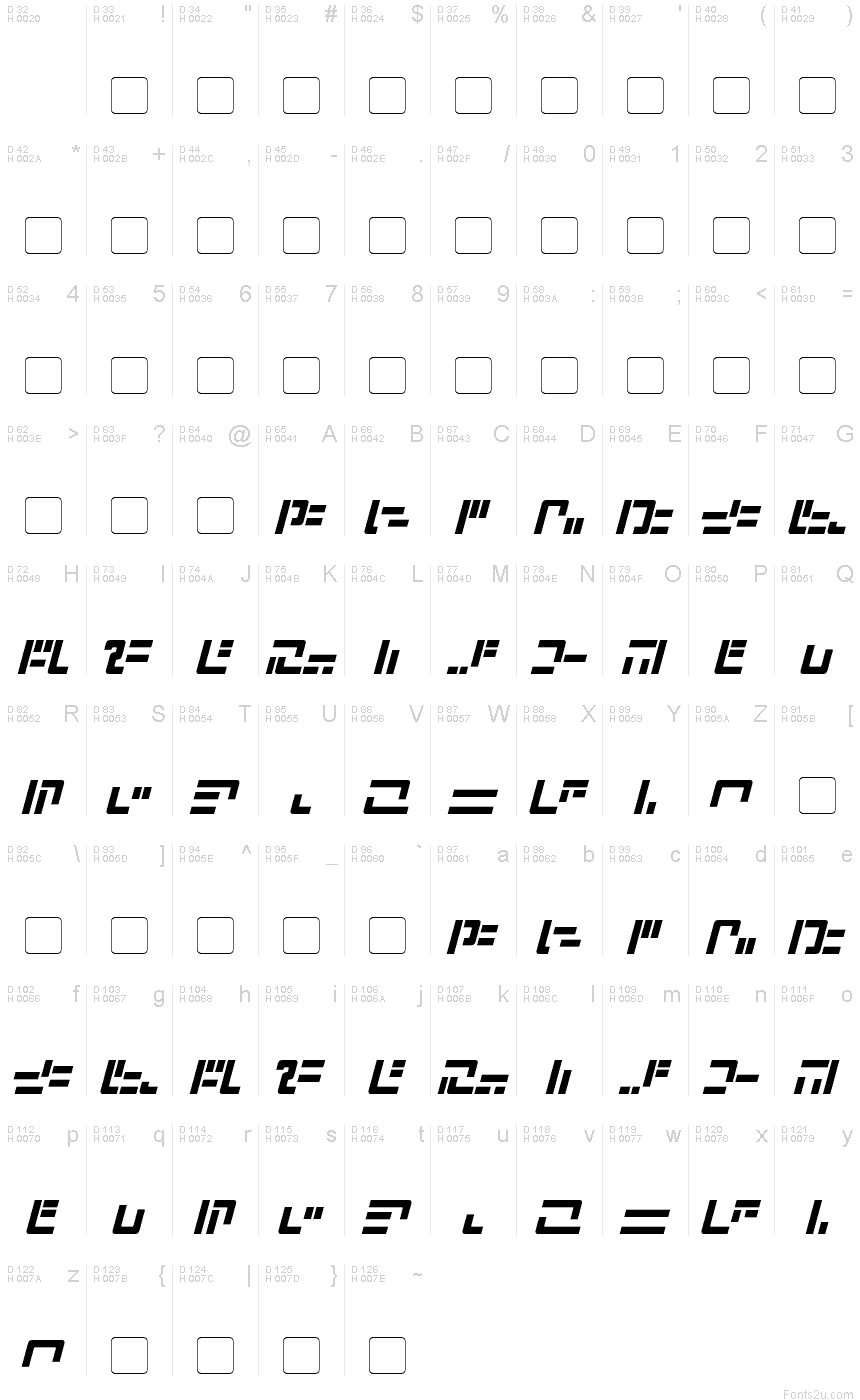
Modern Iaconic Italic
Modern Iaconic is a tech manual style, display-friendly version of the ancient Transformers script found in the Transformers: Legacy history and legends guide. Includes all canon characters. Includes regular and italic weights.